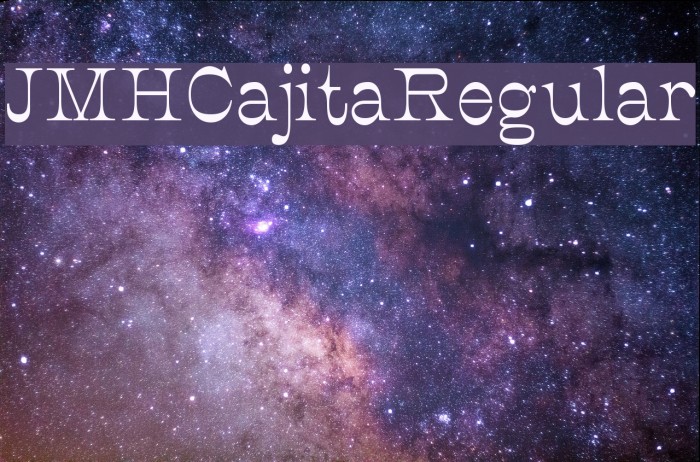
JMHCajita-Regular Font
This font features a unique blend of classic and modern elements, characterized by its distinct serif style. The uppercase letters exhibit a strong presence with sharp, angular serifs that give a bold and authoritative feel. The lowercase letters maintain a consistent style, offering a harmonious balance with the uppercase. The numerals are clear and legible, with a slight flair that adds personality. Special characters are designed with the same attention to detail, ensuring they complement the overall aesthetic. The font's design is versatile, making it suitable for a variety of applications where a touch of elegance and sophistication is desired.
A serif font with sharp, angular serifs and a blend of classic and modern elements.
- Proposed Projects: Ideal for branding, editorial design, book covers, and elegant invitations.
- Overall Style: Classic
- Use Case: Headlines, Body text, Logos